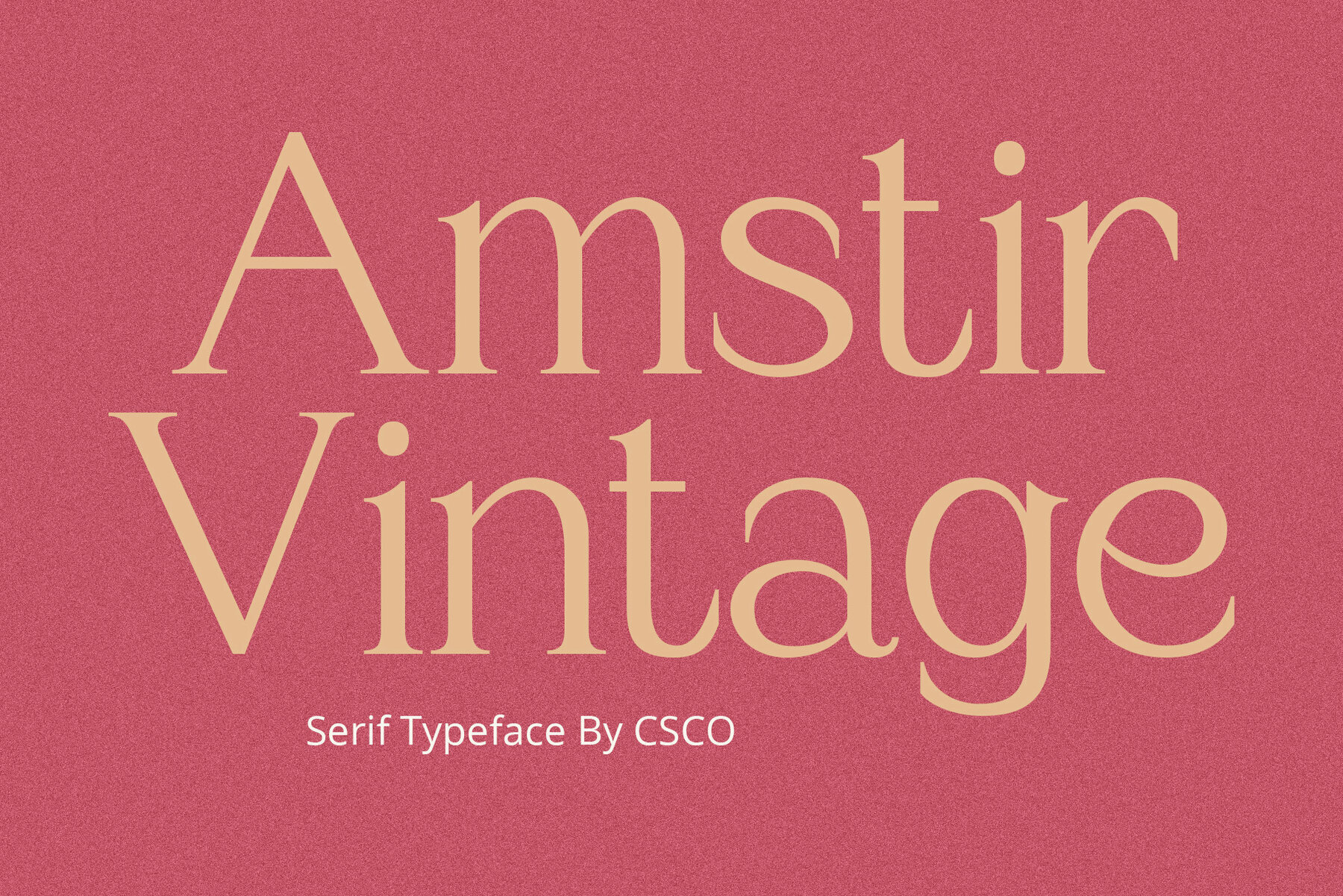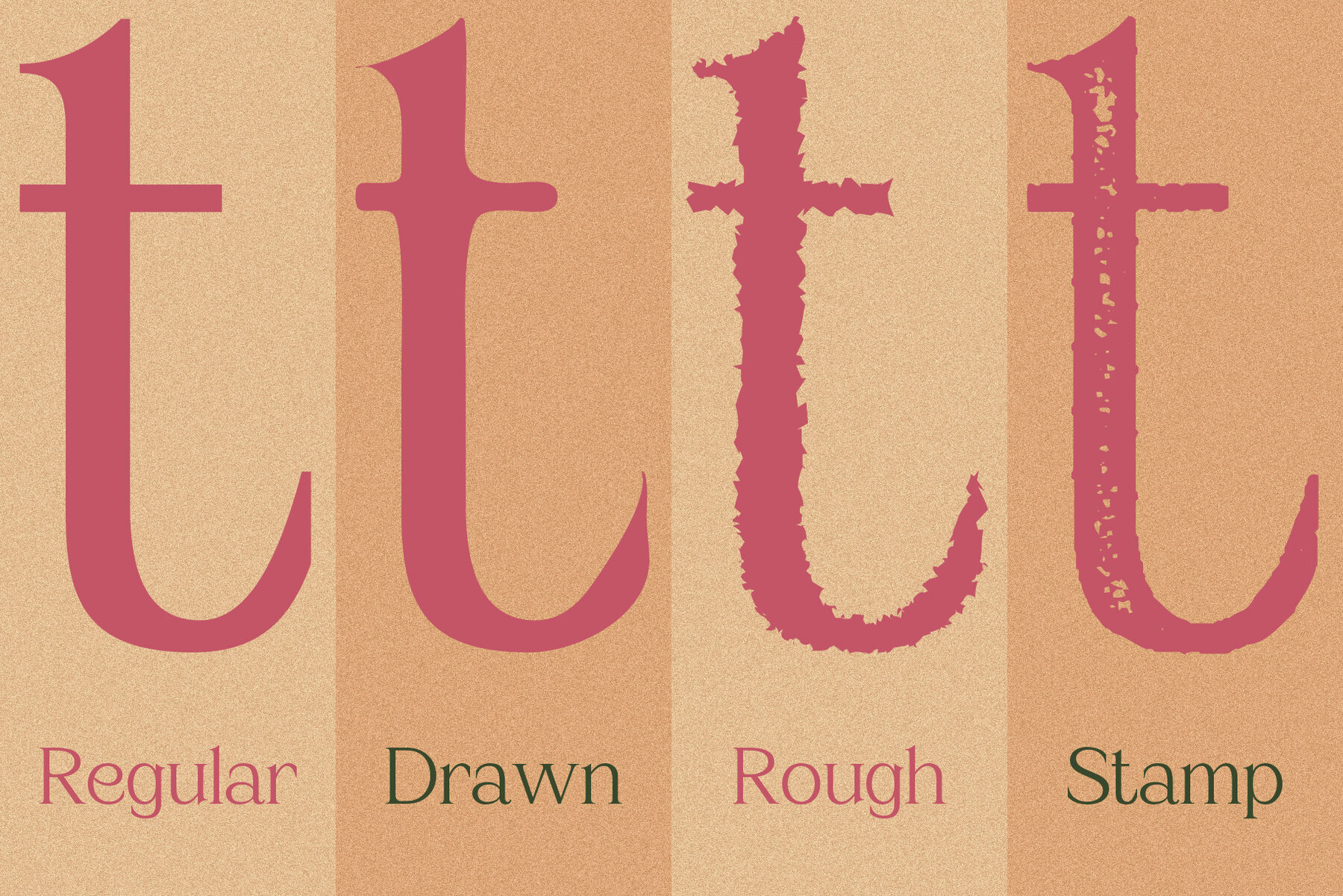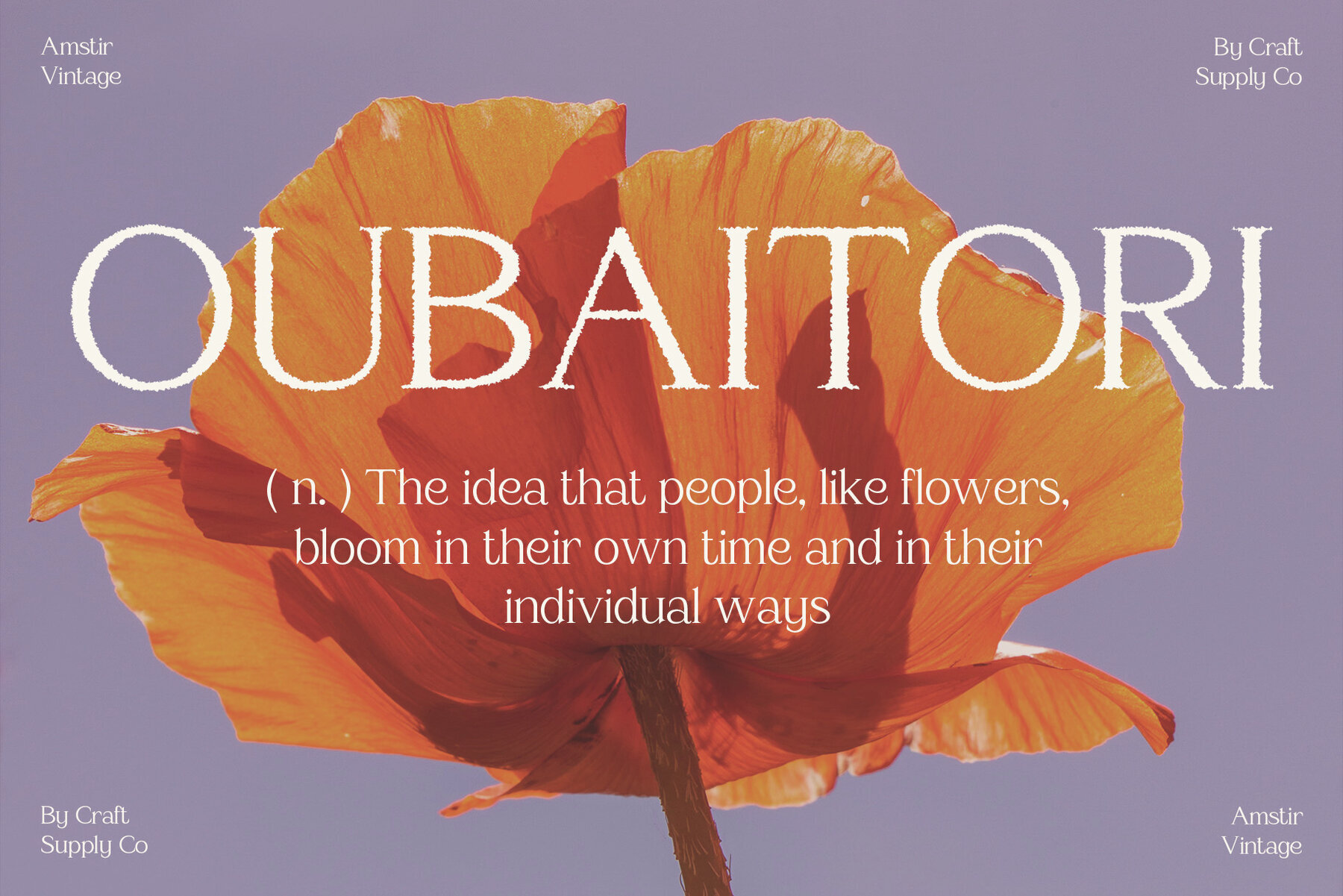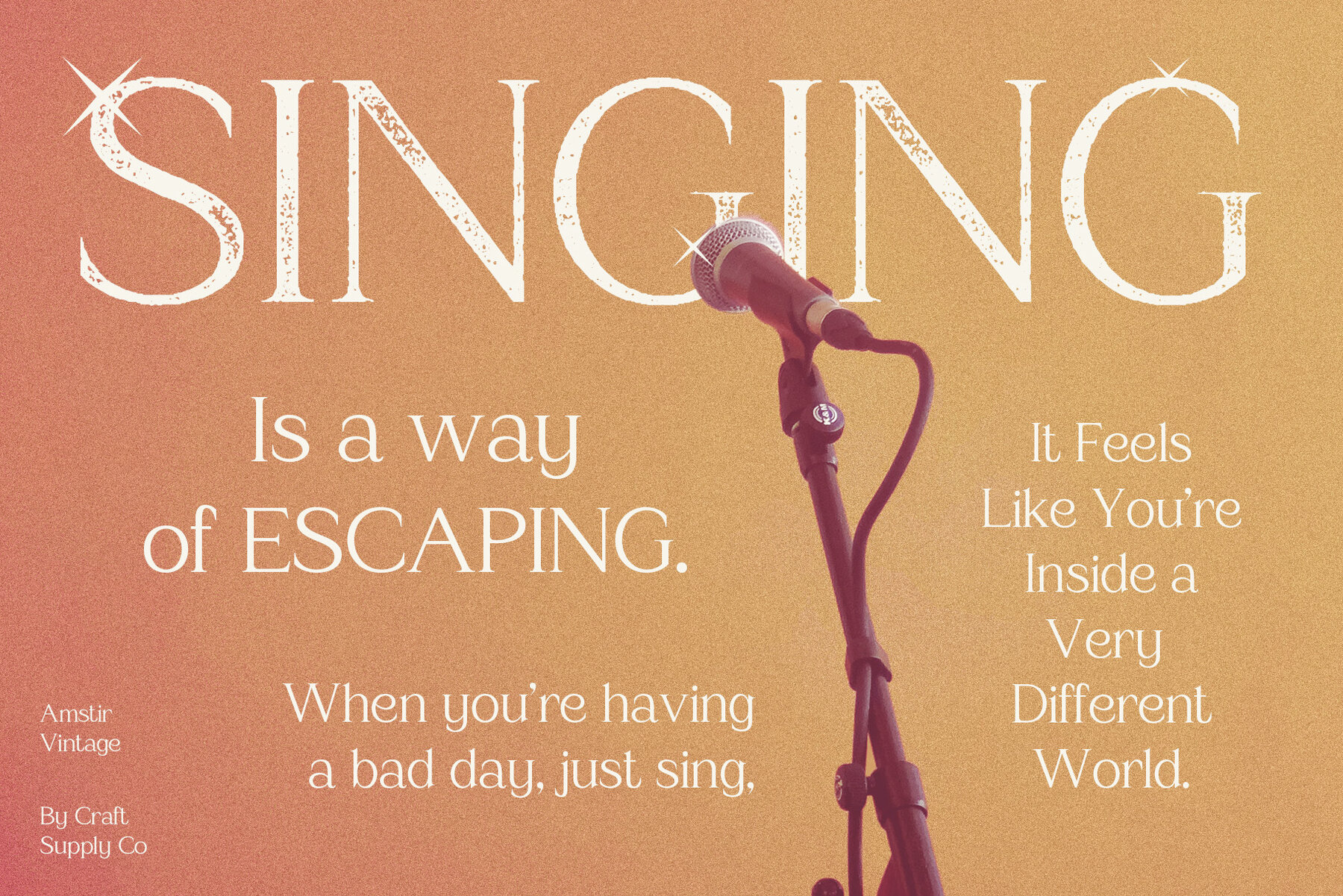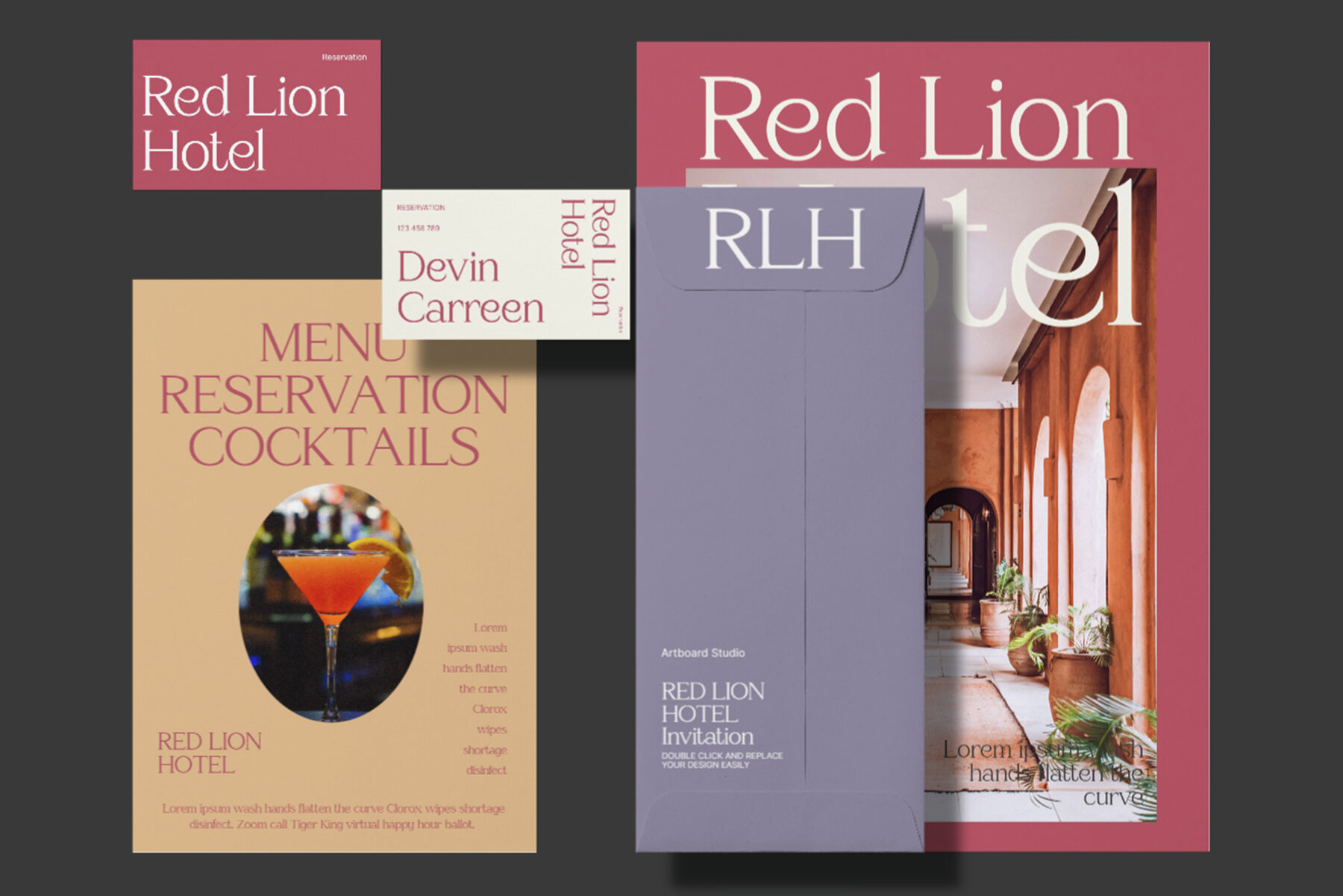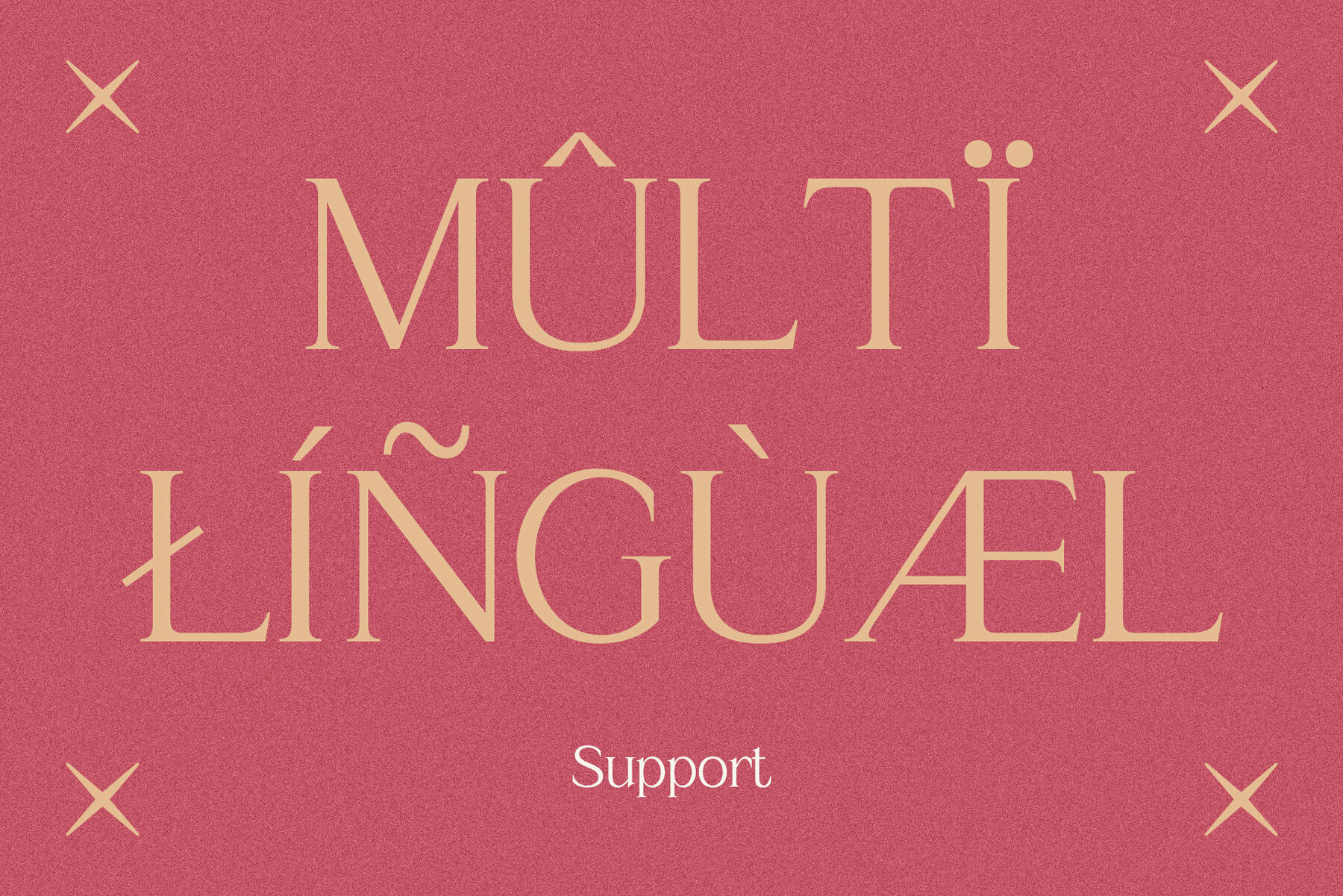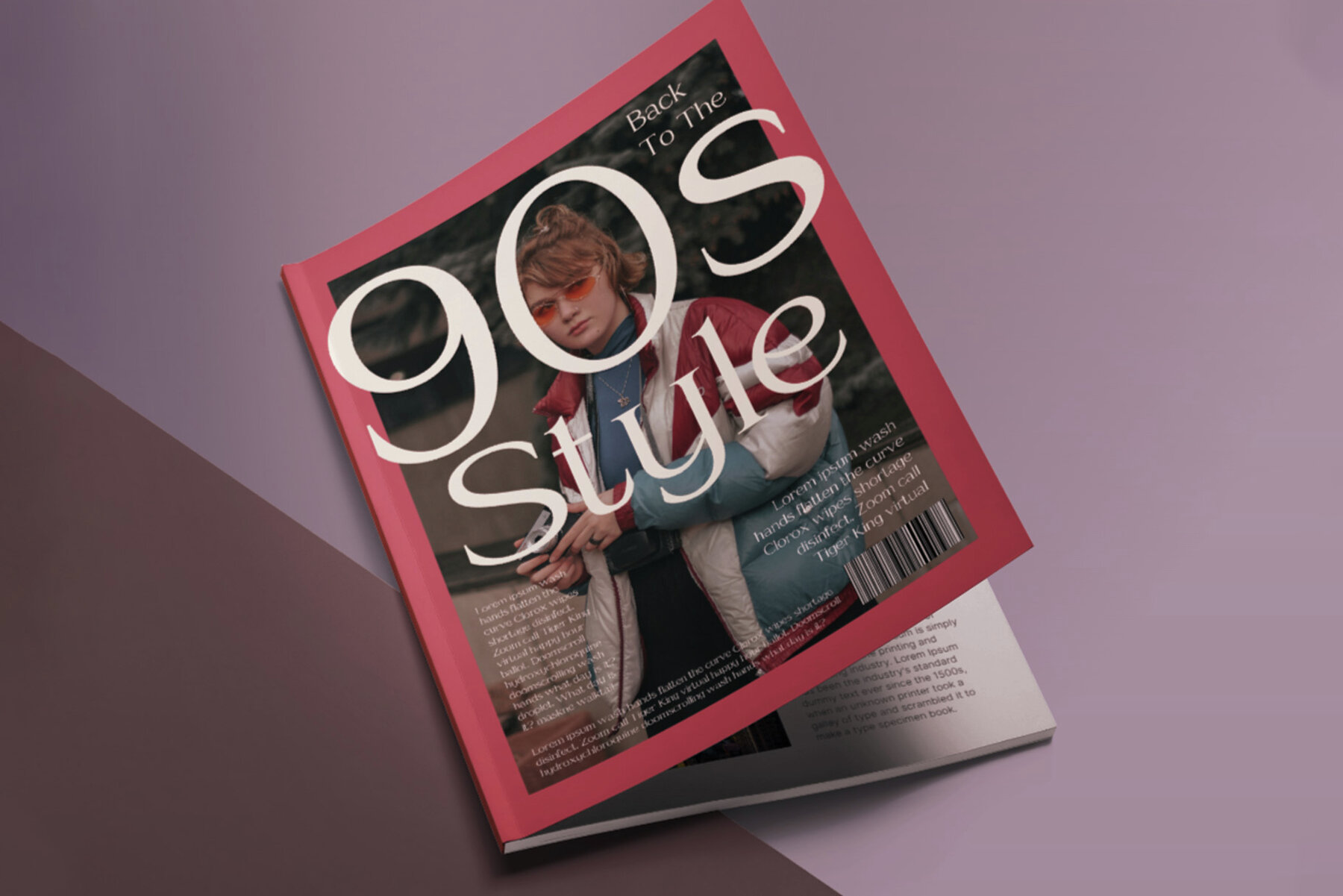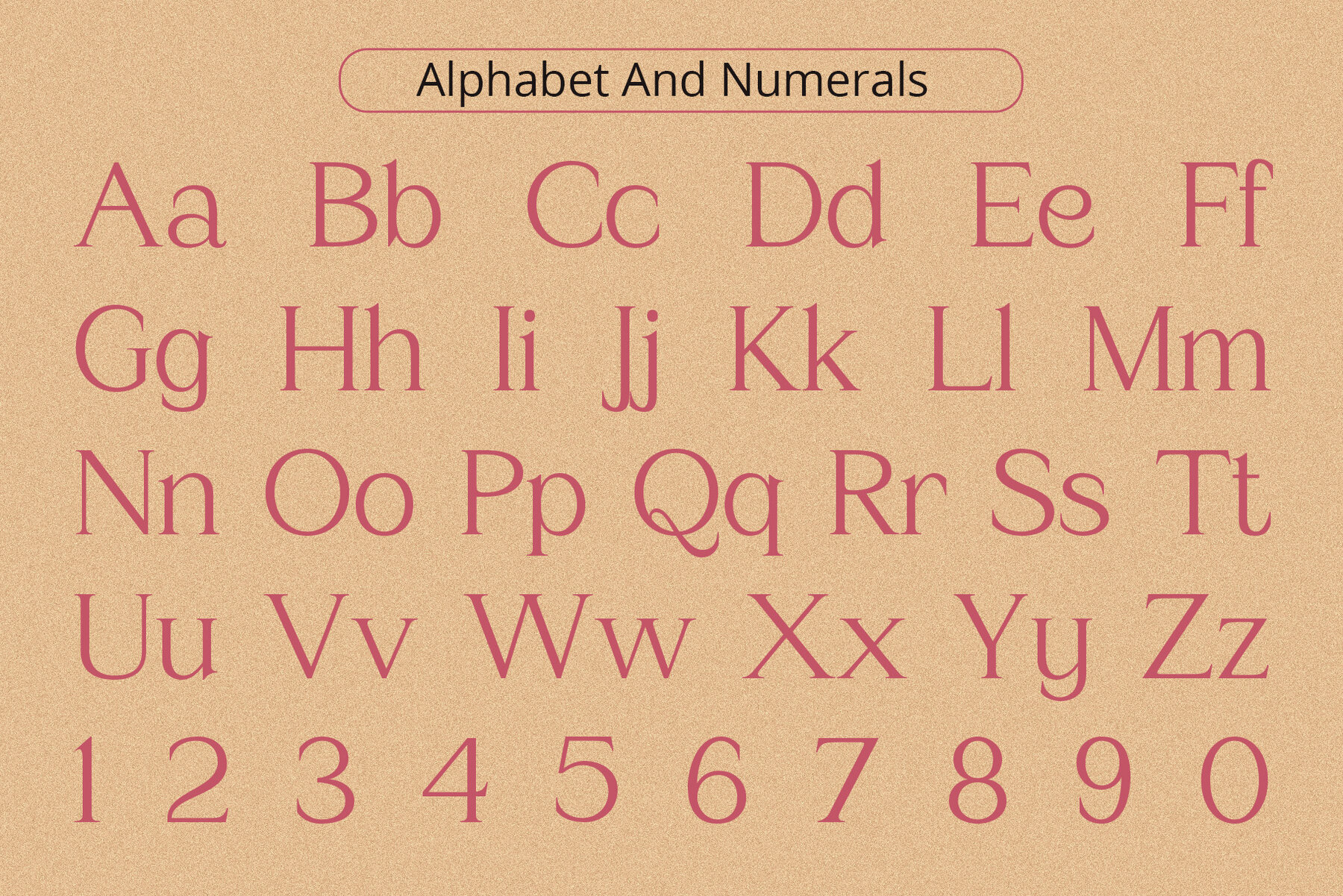
Amstir Vintage Font
Amstir Vintage is a unique serif font distinguished by its vintage flair and modern twist. Combining classic elegance with versatile design, this font is ideal for a variety of design needs. This font's stamp-like texture provides a handcrafted feel, complemented by rough edges that evoke traditional printing techniques. Each letter in Amstir Vintage is meticulously drawn, creating a harmonious blend of old and new styles. Highly readable, Amstir Vintage is suitable for both digital and print media. It excels in branding, packaging, and editorial design, offering a touch of nostalgia to any project. Amstir Vintage's straightforward design ensures accessibility to a wide range of audiences. Its simplicity facilitates easy integration into various designs, appealing to those who value a blend of vintage and contemporary aesthetics. No specialized software is needed to utilize this typeface. For any inquiries or assistance, please don't hesitate to get in touch. Thank you for choosing Amstir Vintage to enhance your creative projects!Amstir Vintage: A Serif Font with Timeless Elegance
Usability and Applications
Accessibility and Appeal